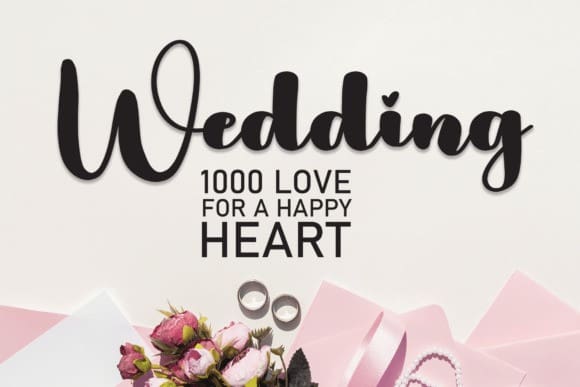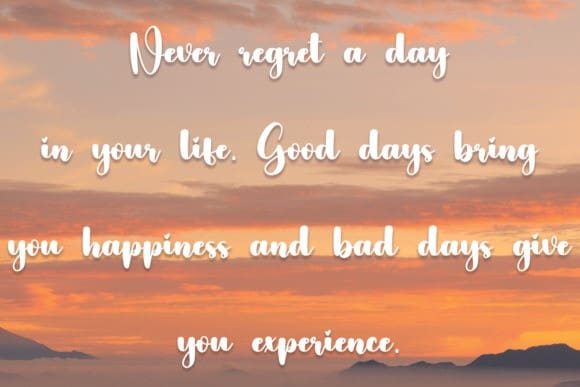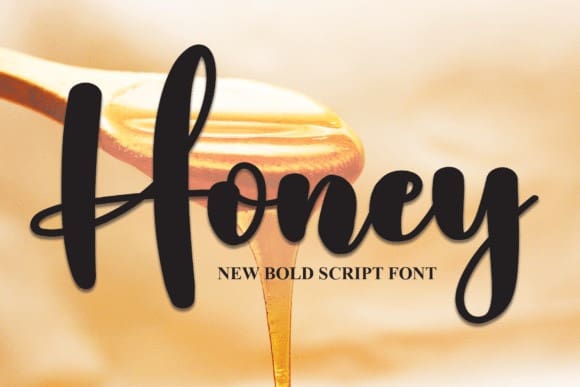
Honey Bold Font
Honey Bold Font, perfect for wall displays, wedding invitations, social media post logos, advertisements, product packaging, product designs, labels, photography, watermarks, invitations, stationery, and any project that requires a handwritten taste.